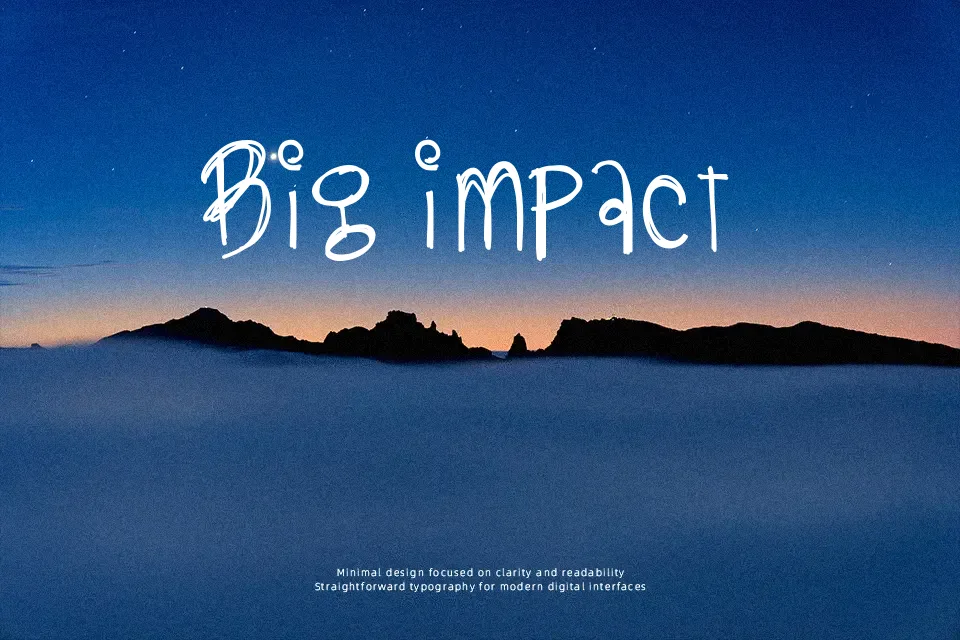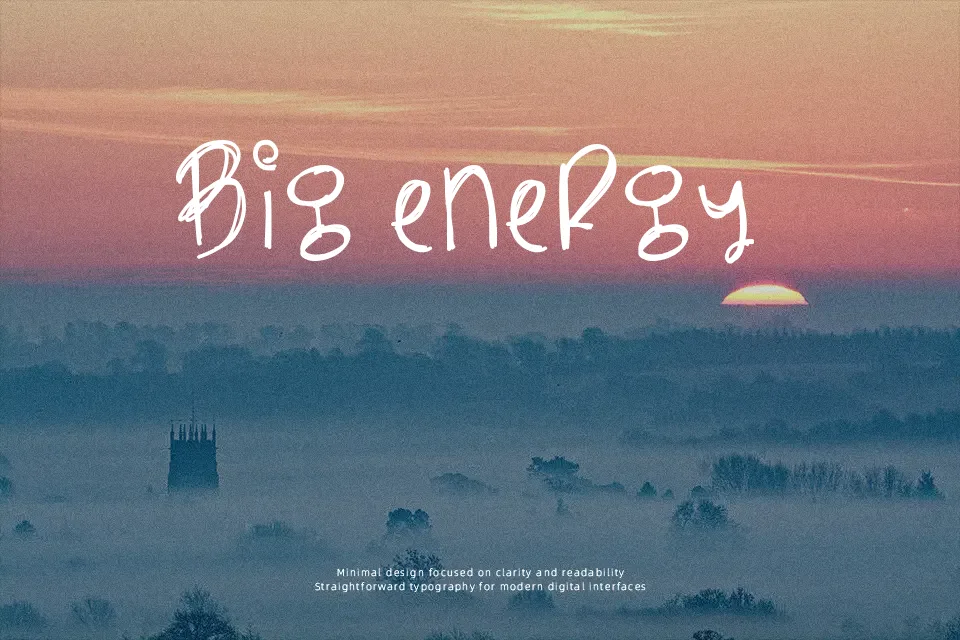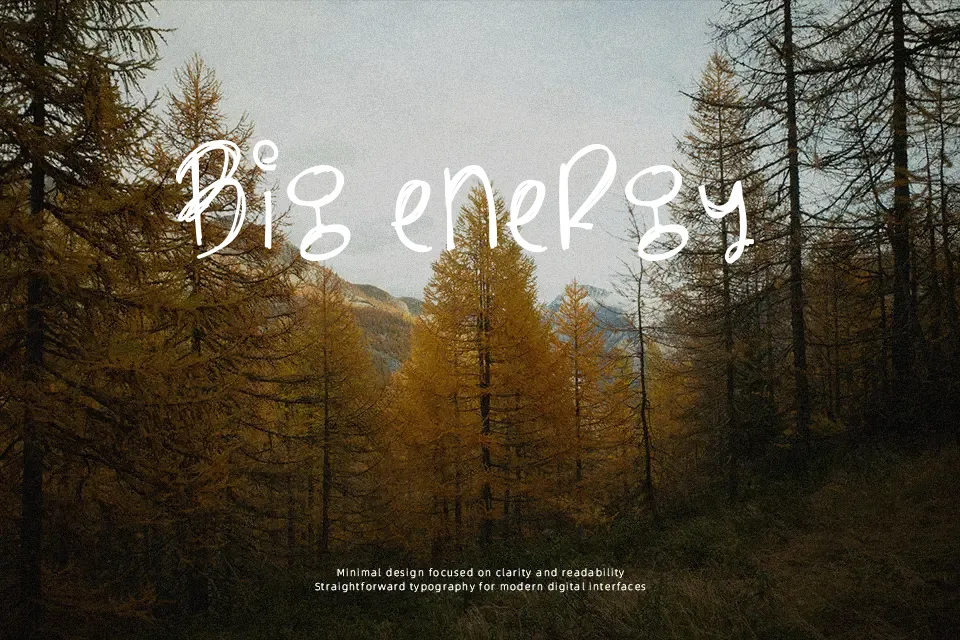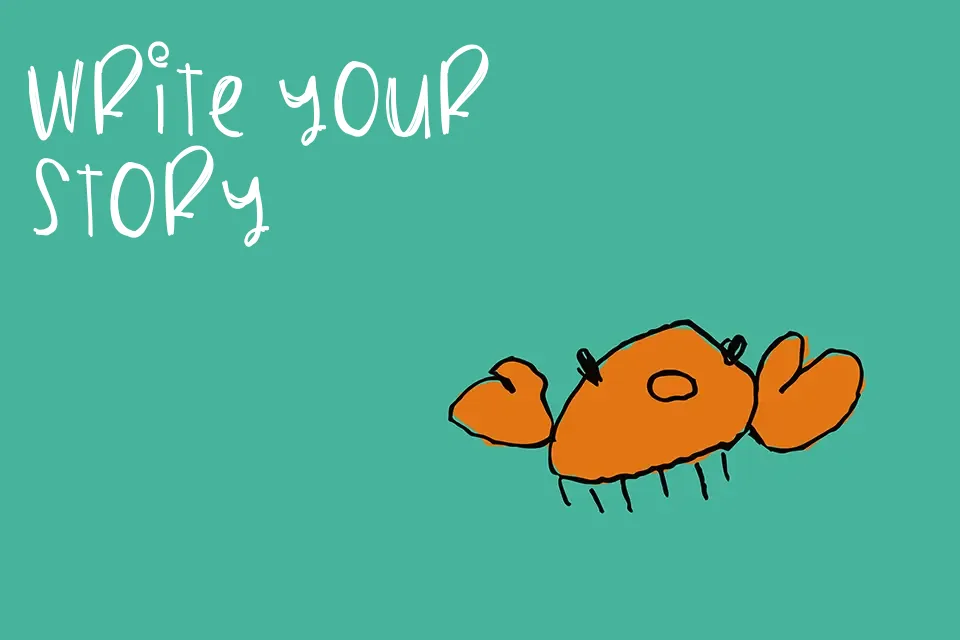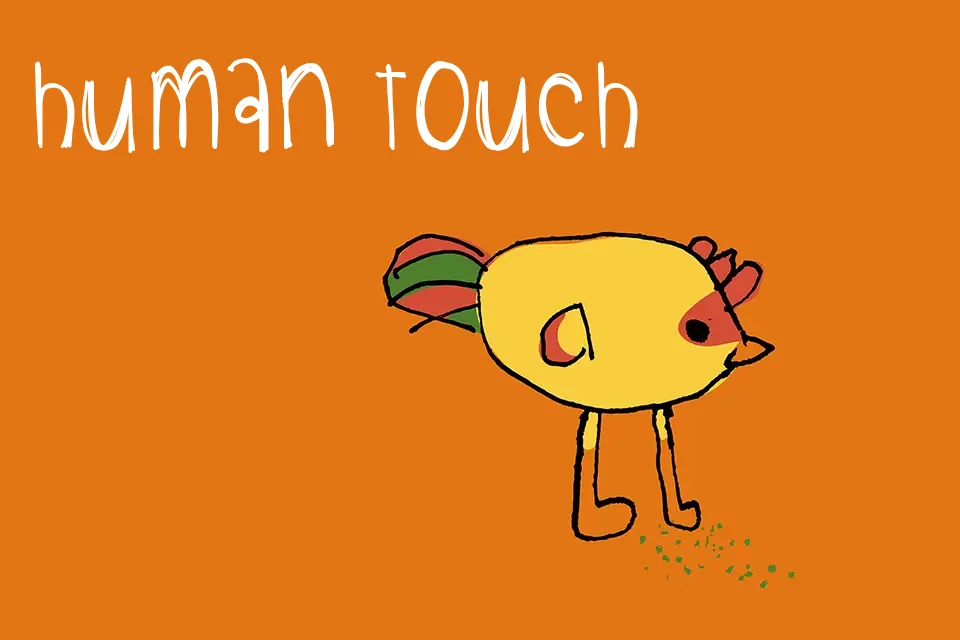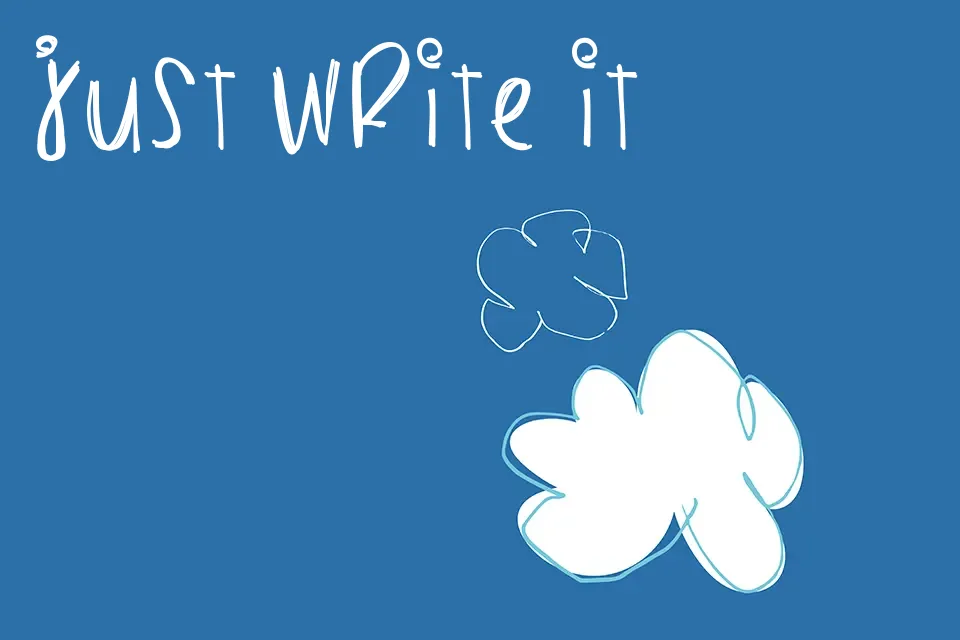
Black Lightning Font
Designed by Des Gomez
Black Lightning is an energetic handwritten typeface designed by Des Gomez. It features slightly irregular strokes, varied line weights, and a condensed structure that lends the text an authentic, hand-drawn appearance. The overall impression is casual and playful, evoking a spontaneous mood reminiscent of marker sketches. This typography performs exceptionally well in informal branding, comic strip lettering, and dynamic youth-oriented apparel designs where you need to convey motion. However, its organic, uneven baseline and tight spacing mean it struggles in dense body paragraphs or small print. Compared to traditional sans-serifs, its lively, unpolished edges make it much more vibrant, yet this strictly limits its suitability for corporate or highly formal contexts.
Comic book dialogue and cover art
Quirky youth apparel graphics
Informal social media campaigns
Dense body text or small print
Corporate branding and formal documents
High-end luxury packaging
Perfect for headline, kids, and poster, with a creative and comic style.